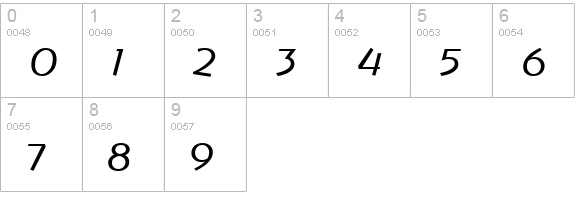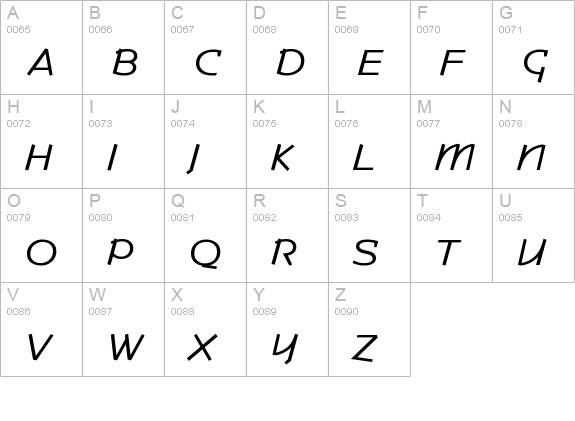
Apanage Font Details
Apanage font is a stunning display typeface that exudes elegance and sophistication. With its refined curves and stylish letterforms, this font is perfect for adding a touch of class to any design project. The Apanage font is versatile and can be used for various purposes, from branding to editorial design. The best part? Apanage font is completely free to download at FontsMarket.com! This means you can elevate your designs without breaking the bank. Don't miss out on the opportunity to add this beautiful font to your collection and take your projects to the next level. Download Apanage font today and let your creativity shine!